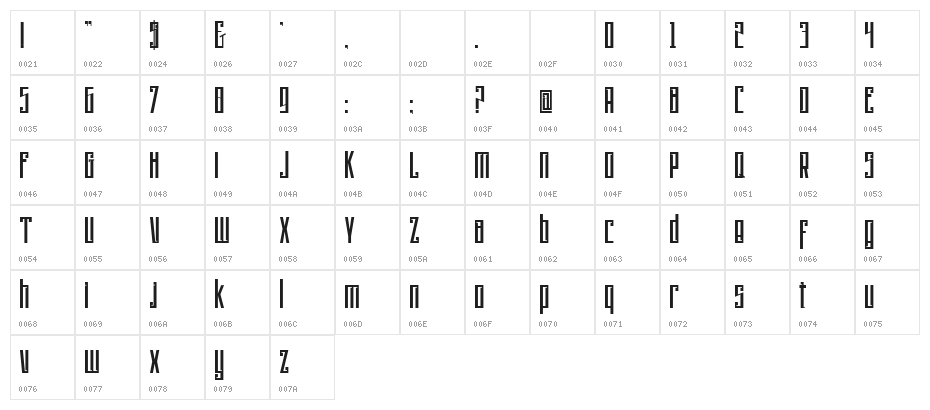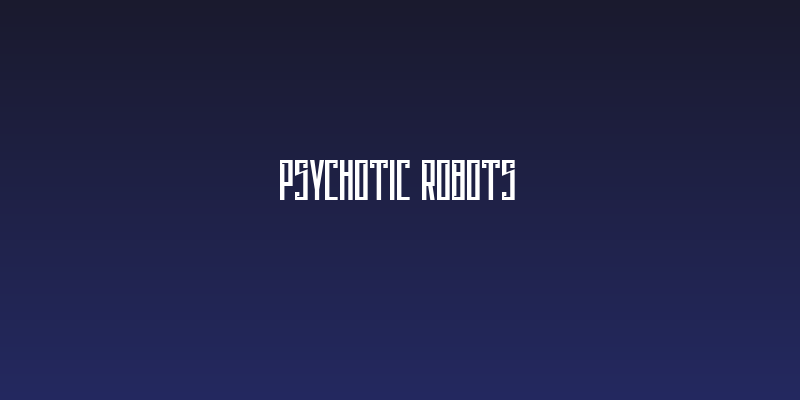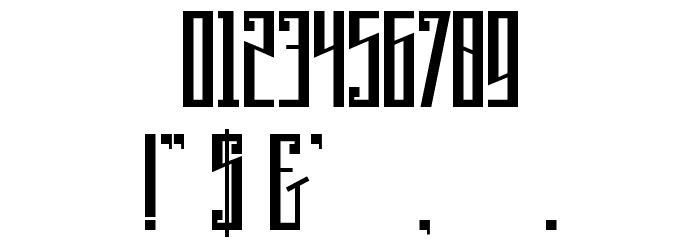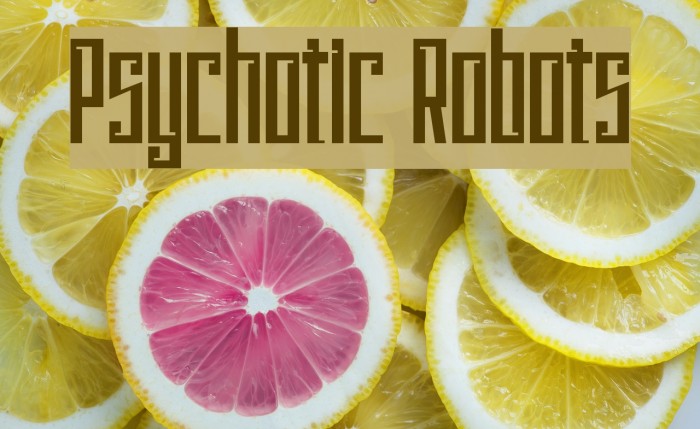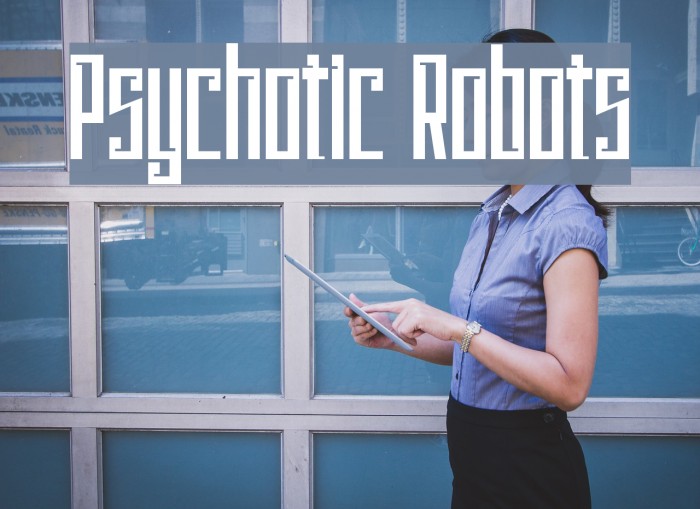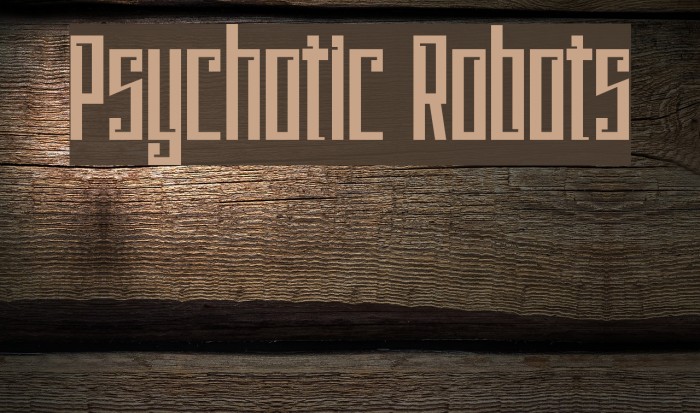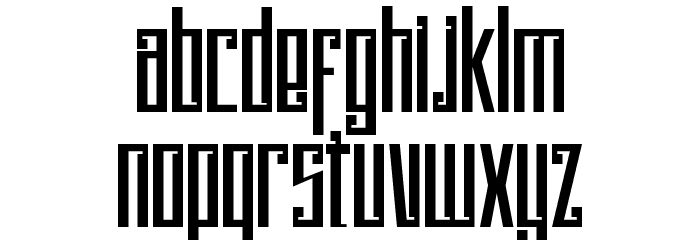
Psychotic Robots Font
Psychotic Robots Description
This font features a futuristic and robotic design, characterized by its tall, narrow letterforms and sharp angles. The geometric structure gives it a mechanical and digital feel, reminiscent of sci-fi aesthetics. Each character is distinct with a uniform stroke width, creating a cohesive and structured appearance. The uppercase and lowercase letters maintain a consistent style, while the numerals and special characters integrate seamlessly into the overall design. This font's unique style makes it stand out, ideal for projects that require a modern and edgy look.
| Proposed Projects | Ideal for sci-fi themed projects, tech branding, video game titles, and futuristic posters. |